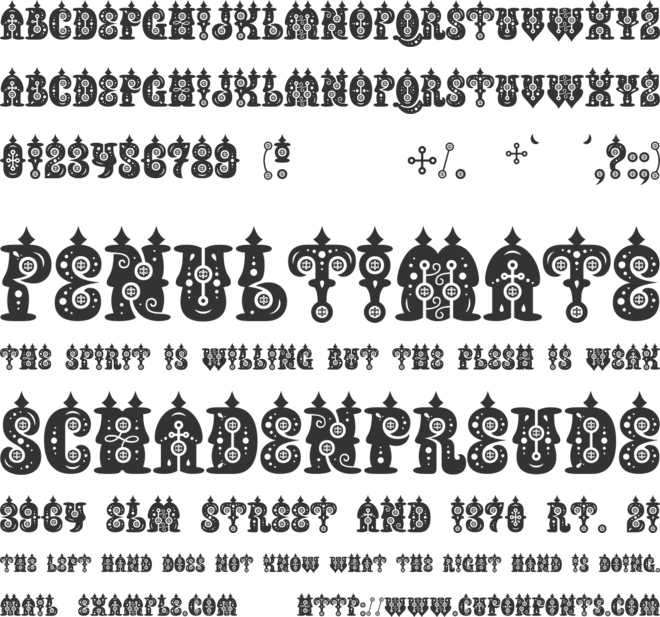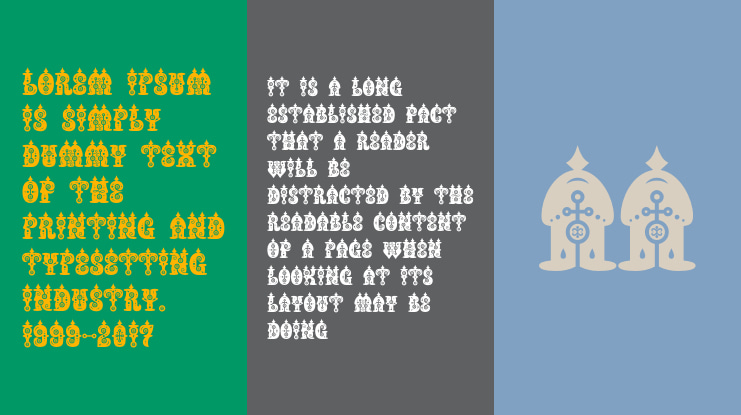
Buxotic Font
The Buxotic font, designed by Ray Larabie and released in 2006 by Typodermic Fonts, is classified as a display typeface with a kitschy, whimsical, and ornate aesthetic. It's a bold, decorative font optimized for headlines, logos, posters, and branding rather than body text. Its overall vibe is playful yet edgy, evoking a sense of vintage burlesque or cabaret glamour. It has curvaceous forms and unusual embellishments. It's released under a public domain license (Creative Commons Zero), making it free for both personal and commercial use